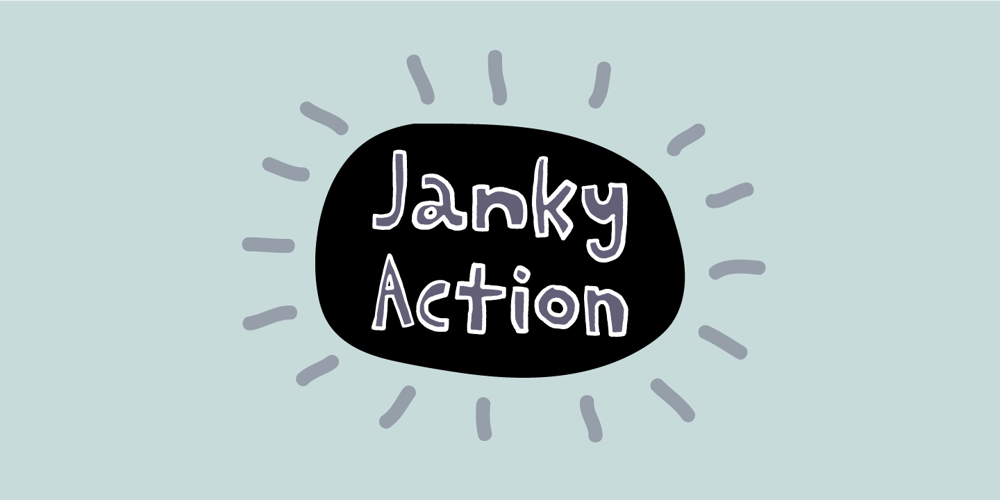
Janky Action Font Family was designed by Jakob Fischer and published by Bogstav. Janky Action contains 3 styles and family package options. First of all, let me get one thing straight: With Janky Action, I didn’t make any attempt on making a beautiful or good looking font!Janky Action is my humble attempt to recreate a sign I saw at a flea market. The sign was obviously made by someone who didn’t give a darn about the width of strokes, height of letters, and other “rules” when making a sign. I fell in love with the naive approach on how to make a sign. In order to create some randomness, I have added 4 different versions of each lowercase letter. I hope you find this font as enjoyable as I did while making it! 🙂